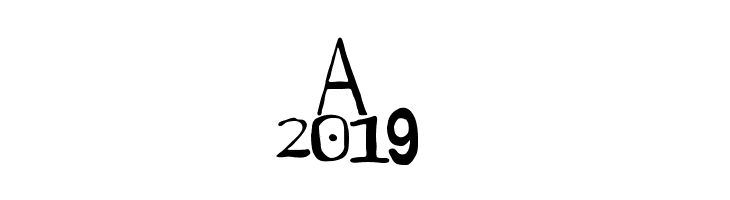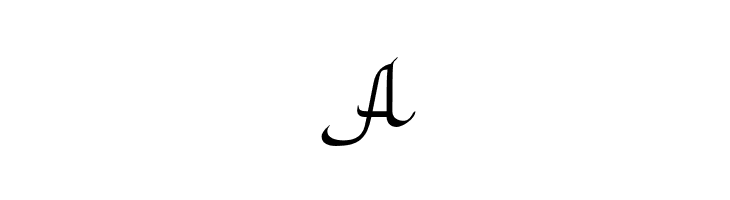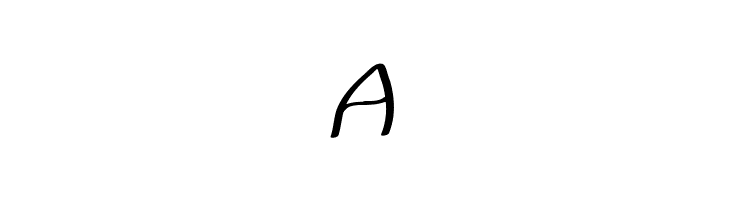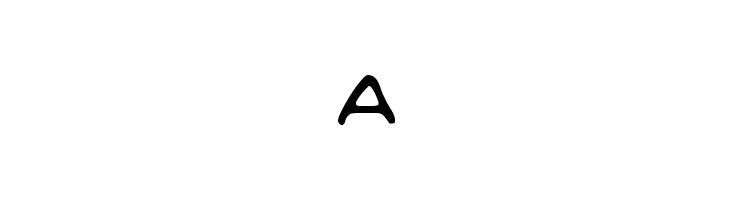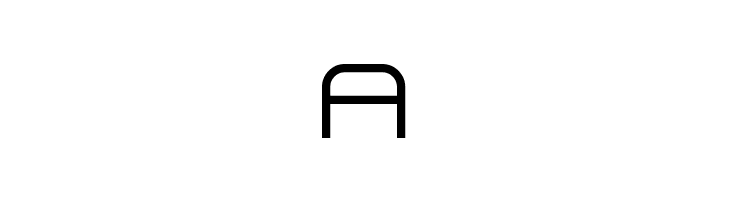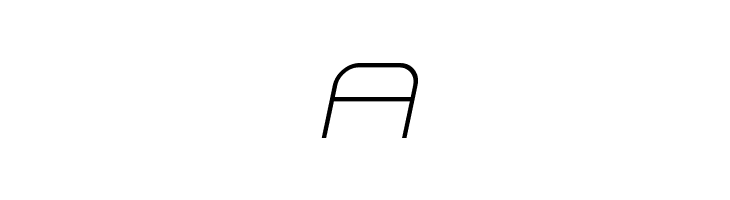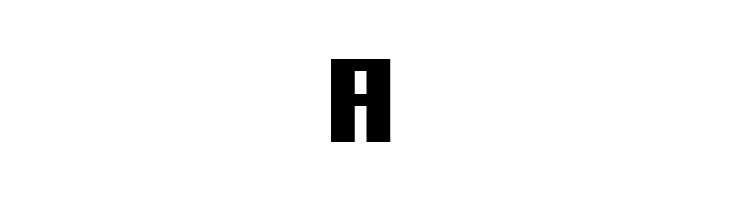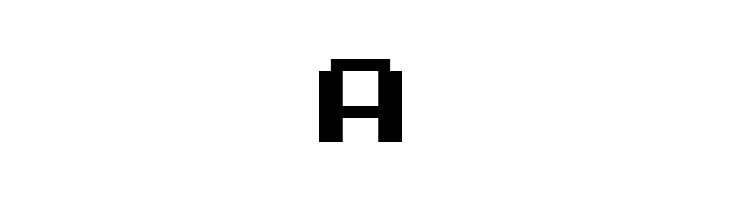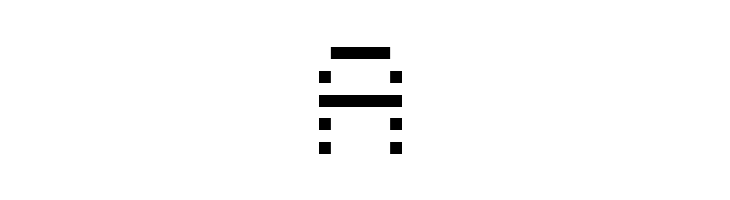
A bold, distressed industrial font with a rugged, grunge aesthetic.
A futuristic, geometric font with angular and curved elements, perfect for modern designs.
A futuristic, geometric font with a 3D outline effect.
A sleek, modern font with geometric precision and a futuristic aesthetic.
A futuristic, outlined font with a three-dimensional appearance and geometric precision.
A futuristic, geometric font with sharp, angular letterforms.
A sleek, modern font with geometric and angular characters.
A playful, hand-drawn font with bold, rounded strokes and a casual style.
A playful, 3D cartoon-style font with bold outlines and rounded characters.
A bold, italicized font with a dynamic, handwritten style.
A playful, handwritten font with bold, rounded strokes and a casual style.
A bold, decorative font with intricate details and a modern, playful style.
A playful handwritten font with fluid, irregular letterforms and a casual aesthetic.
A scratchy, hand-drawn font with a textured, artistic style.
A pixelated, retro-style font inspired by early digital displays.
A pixelated dot-matrix font with a digital, retro aesthetic.
A bold, geometric grid-based font with a modern and decorative style.
A sleek, modern font with geometric, minimalistic design and rounded corners.
A sleek, modern italic font with geometric precision and a dynamic appearance.
A modern, geometric font with thin, uniform lines and a minimalist design.
A sleek, modern font with a futuristic and slightly italicized design.
A bold, angular font with a digital, futuristic style.
A bold, graffiti-inspired font with sharp, angular lines and dynamic energy.
A bold, angular serif font with a modern twist, ideal for impactful designs.
A bold, playful display font with a cartoonish style.
An elegant, script-like font with flowing curves and a calligraphic style.
A rounded, modern font with smooth curves and consistent stroke width.
A bold, handwritten-style font with dynamic brush strokes.